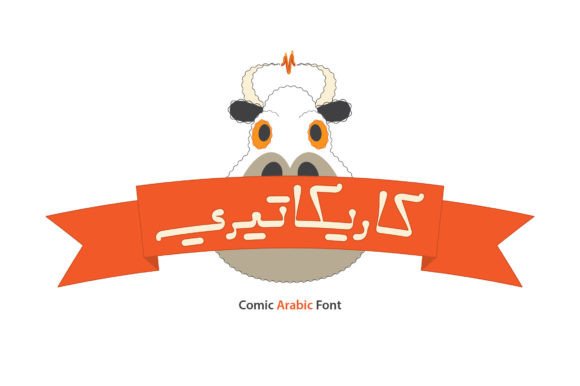
Behold Caricaturey, the Arabic display font that injects humor into your typography! This remarkable creation by Mostafa El Abasiry captures the essence of caricature art, where letters playfully dance with uneven ink flow.
Caricaturey is not just a font; it's a journey into a world where laughter and creativity collide. Its whimsical letterforms evoke the charm of hand-drawn caricatures, adding a touch of lightheartedness to your designs.
Imagine your words taking on a life of their own, as if they were characters in a comic strip, ready to entertain and engage your audience. With Caricaturey, you can transform ordinary text into a visual spectacle, where each letter becomes a quirky character, telling a unique story.
This font is the perfect companion for comics, caricature drawings, and any design project where a touch of humor is desired. Its playful personality adds a spark of joy to invitations, posters, social media graphics, and even website designs.
Caricaturey invites you to break free from the mundane and embrace the extraordinary. Let your creativity run wild as you explore the boundless possibilities of this font. Its unique style is sure to leave a lasting impression on your audience, making your designs unforgettable.
Join the ranks of creative visionaries who have embraced Caricaturey to add a touch of whimsy to their projects. Unleash your imagination and let the laughter flow through your designs.